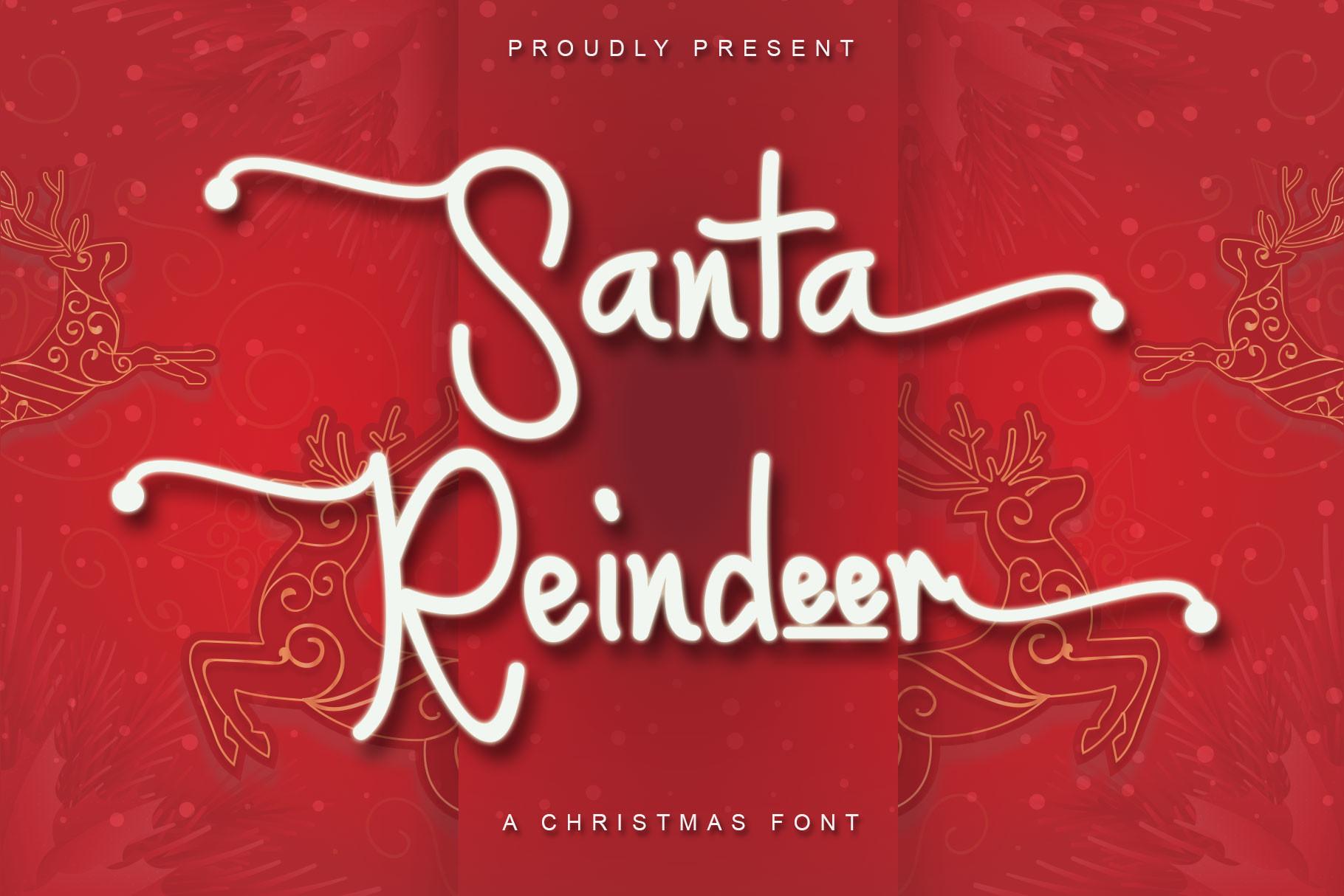
Santa Reindeer is a cute lettered and festive script font. This font is PUA encoded which means you can access all of the amazing glyphs and ligatures with ease!